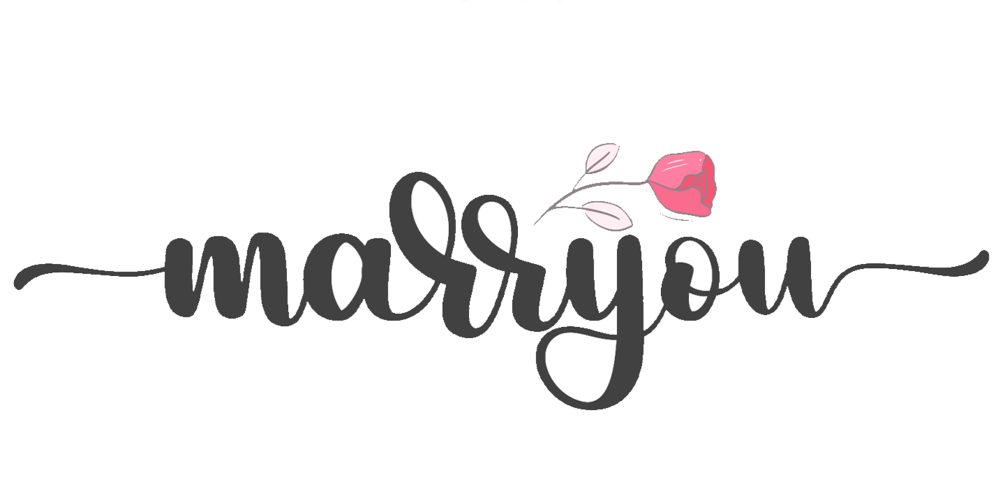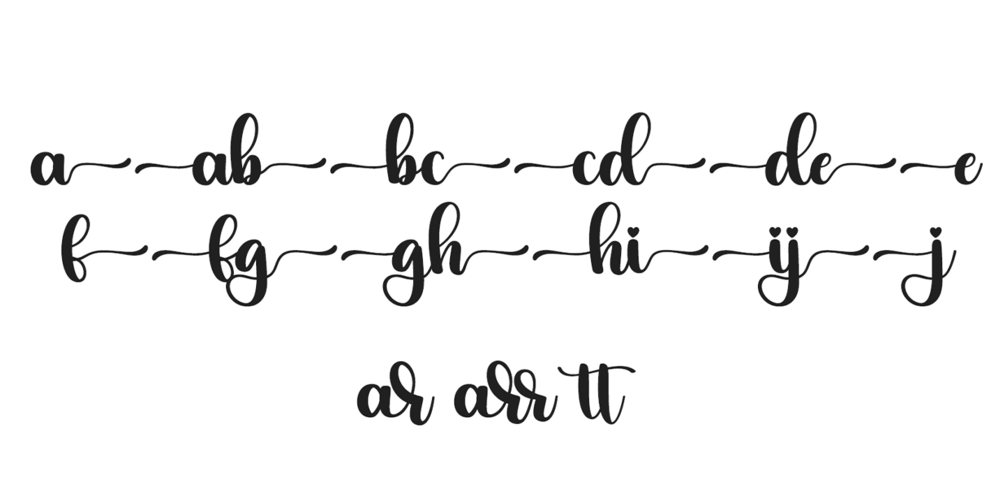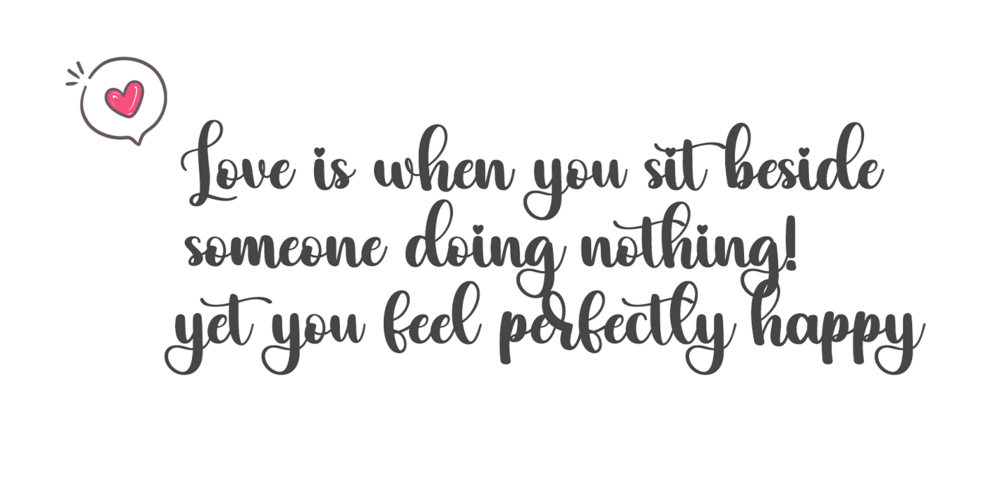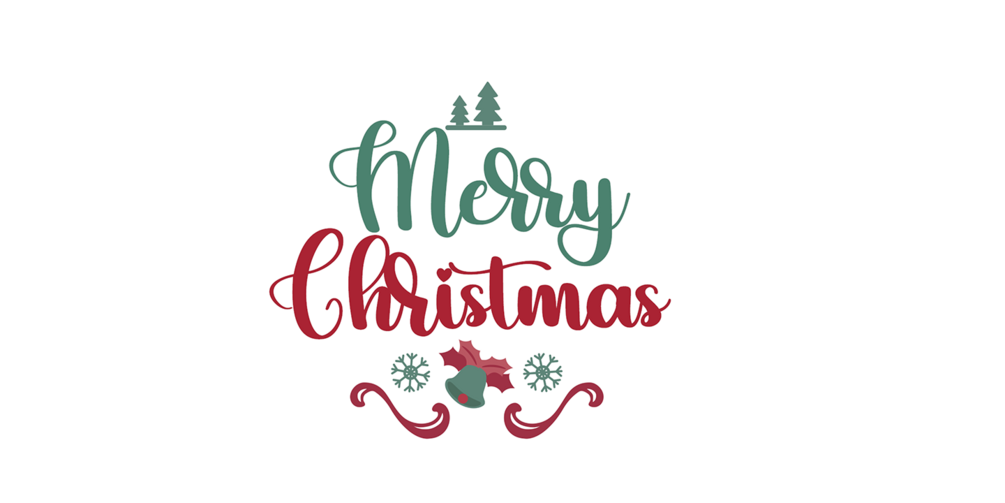
Marryou
Marryou – Whimsical Script Font with Playful Curves & Charming Swashes
Marryou is a whimsical script font that blends playful charm, relaxed free-spirited style, and fluid handwritten strokes. With charming flourishes and lighthearted elegance, this playful calligraphy font is perfect for wedding invitations, greeting cards, save the date cards, logos, branding, social media posts, party banners, stickers, and DIY crafts. Add a touch of joy, romance, and personality to every project!